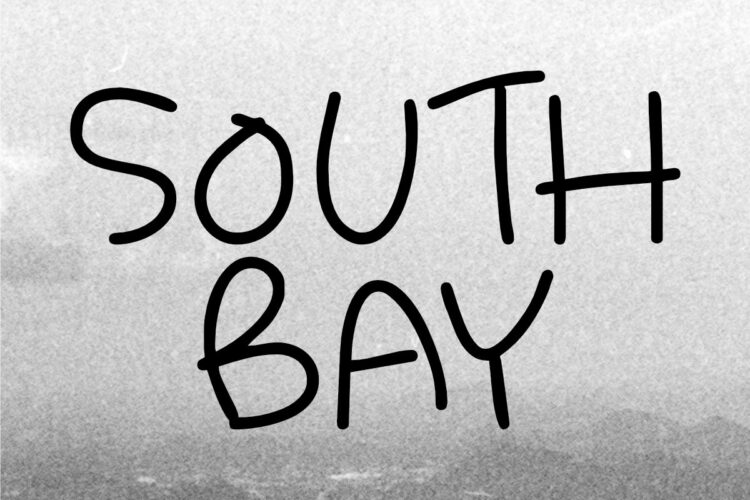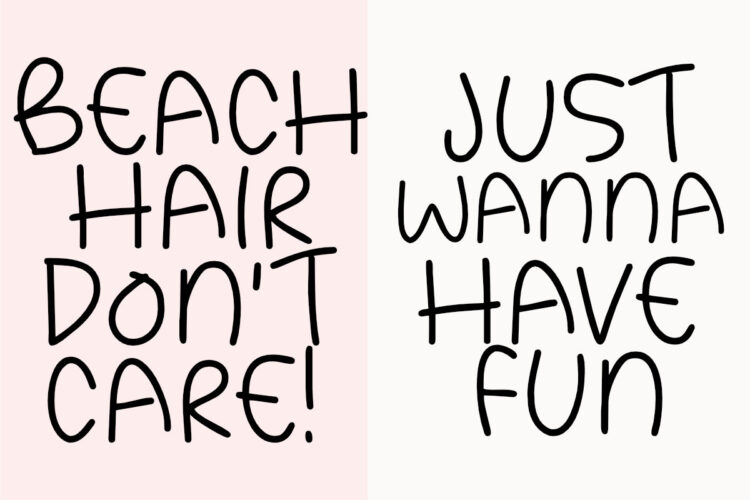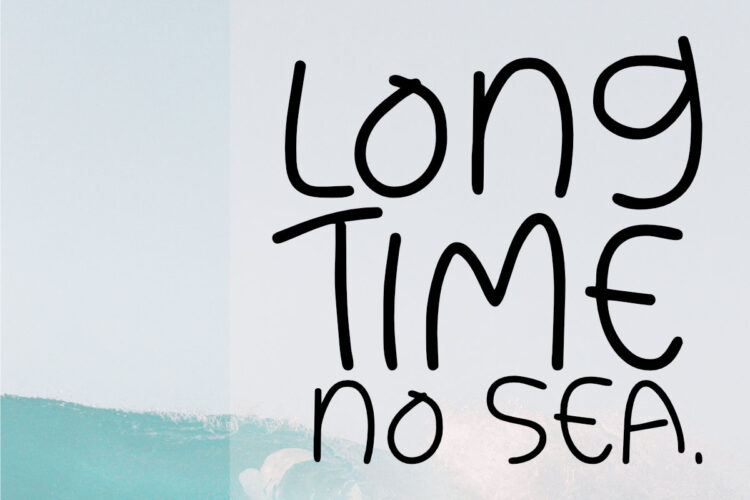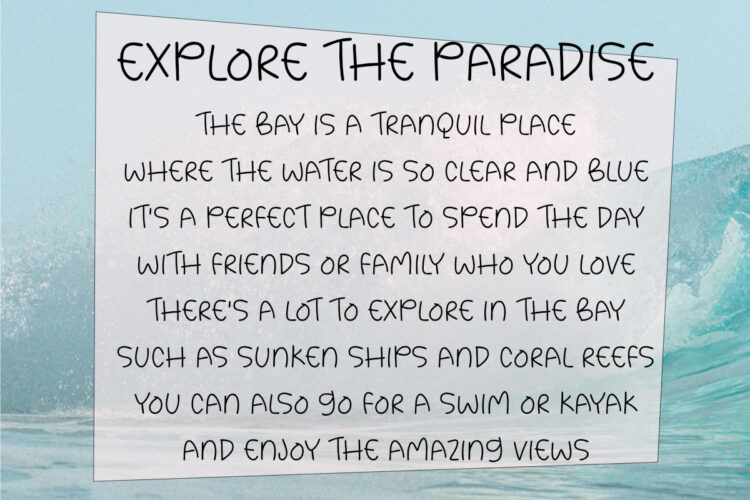
If you’re looking for something cute yet unique and natural, then South Bay is perfect for you. It would be great for a child’s journal, a school project, or even a book cover. The letters will help you unleash your creative side and make anything from a basic to an advanced project look amazing!